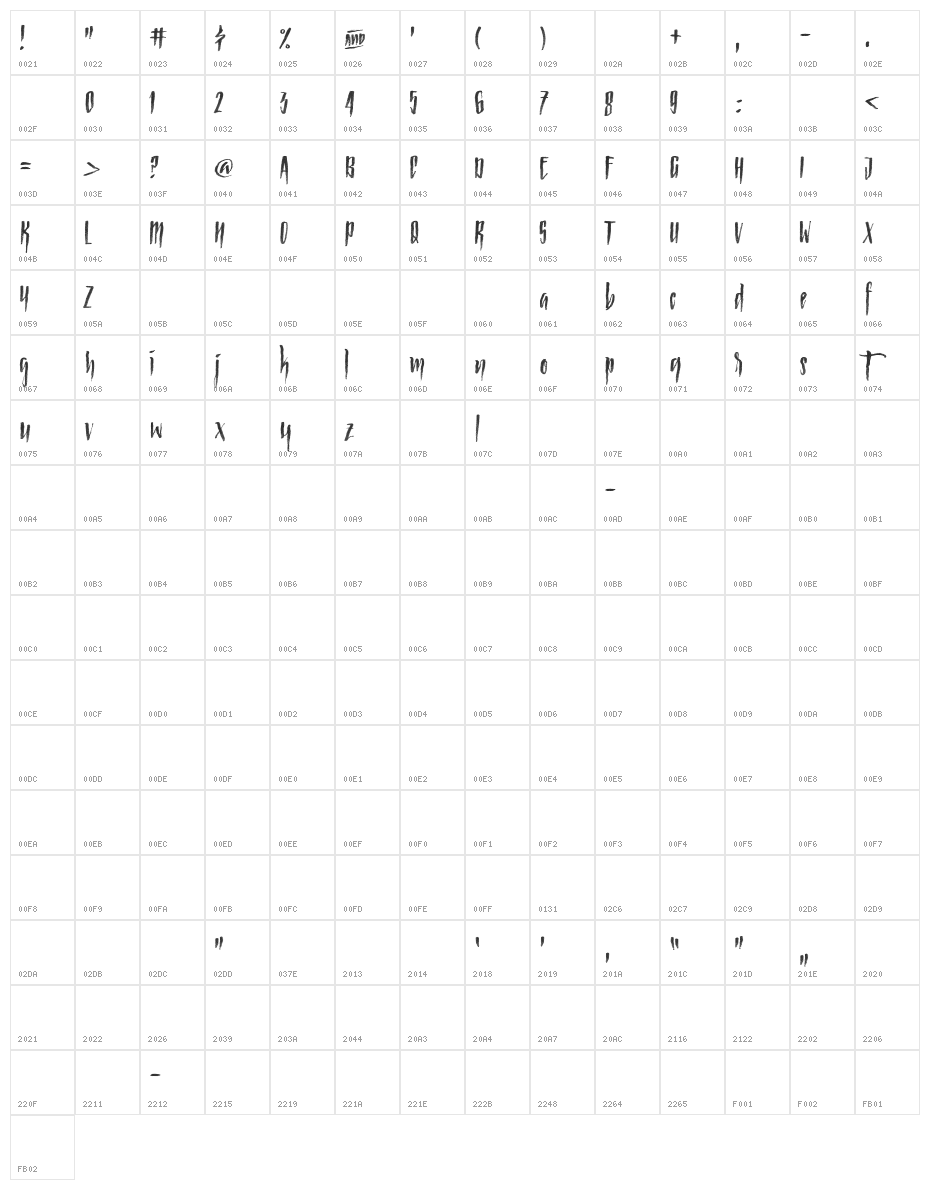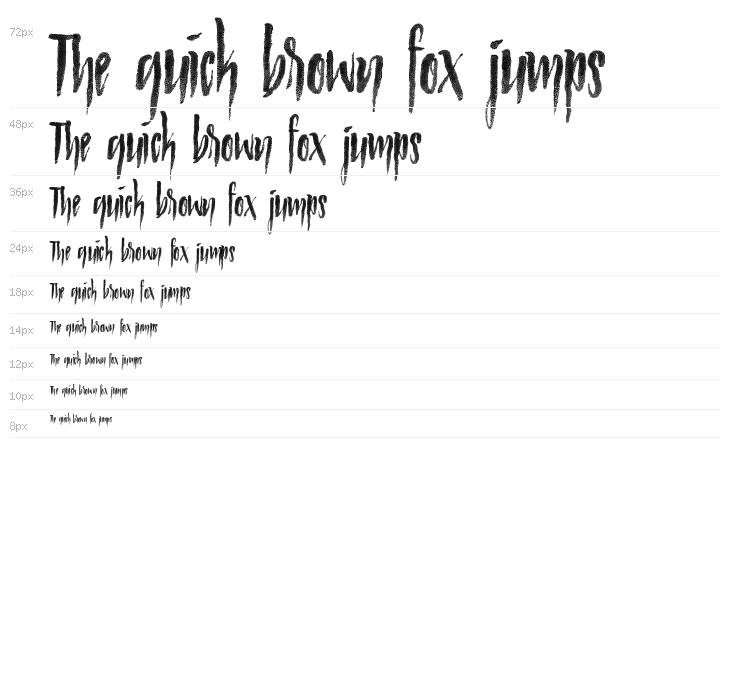
Strained Font
| Stile generale | Urban, Edgy, Expressive |
| Progetti proposti | Ideal for street art designs, music album covers, edgy branding, and poster headlines. |